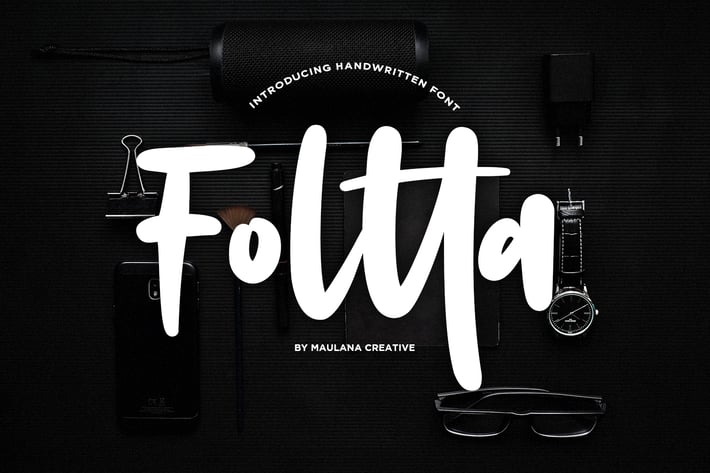
Foltta Typeface
Give your designs an authentic handcrafted feel. Foltta Typeface is perfectly suited to logo, stationery, branding, typography quotes, magazine or book cover, website header, clothing, branding, packaging design, restaurant and more. Includes Ligatures tt . rr . ss